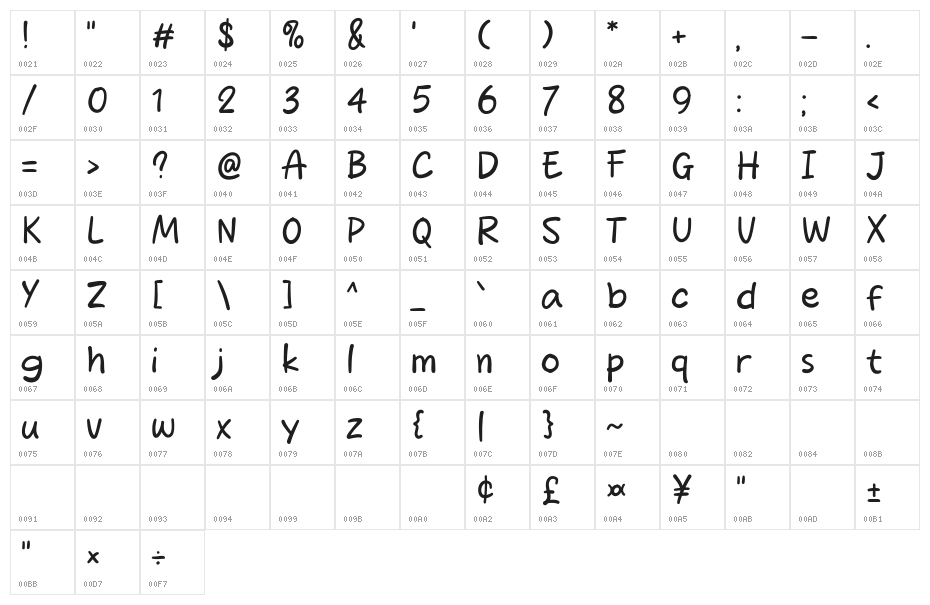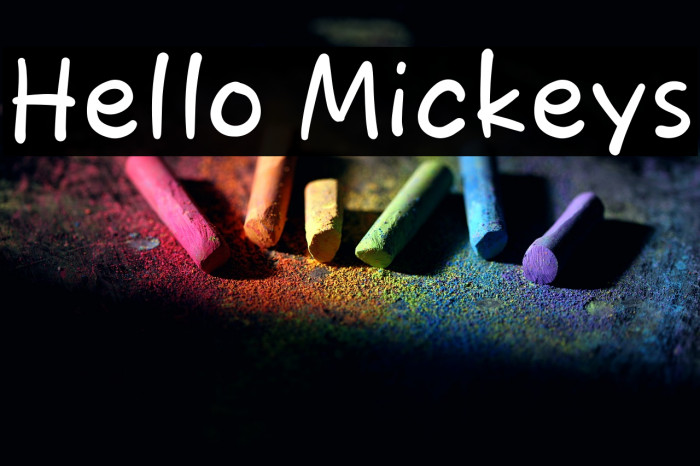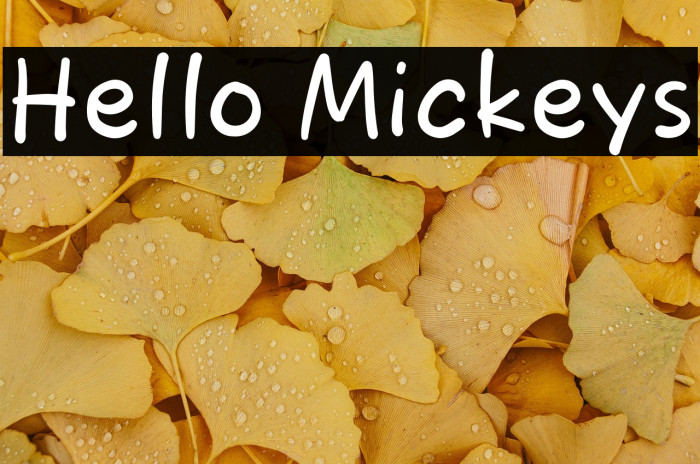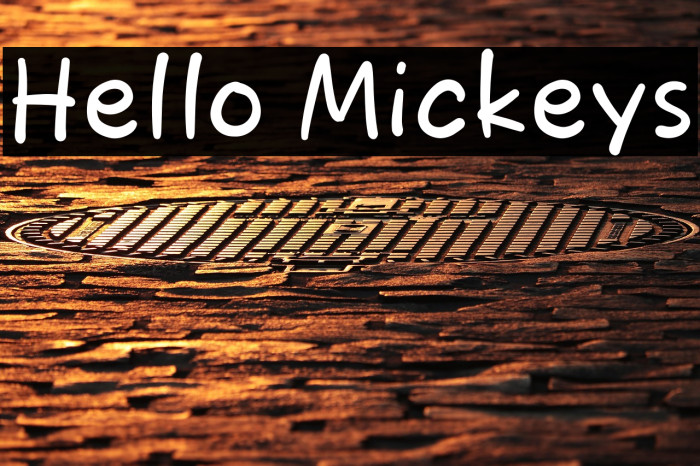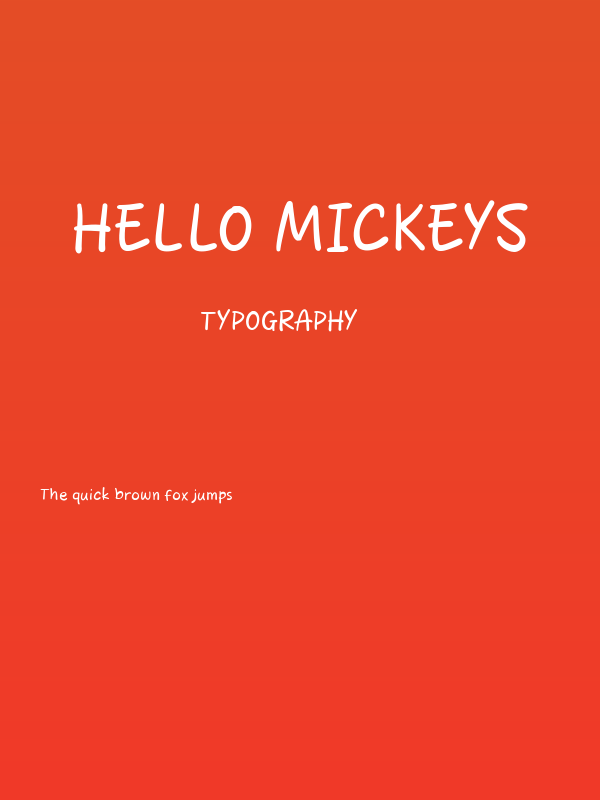
Hello Mickeys Font
Hello Mickeys Description
This font features a playful and casual handwritten style, characterized by its smooth curves and rounded edges. The letters are slightly tilted, adding a dynamic and informal feel. The uppercase and lowercase letters maintain a consistent flow, with the lowercase letters being slightly smaller and more compact. The numerals and special characters follow the same style, ensuring uniformity across all glyphs. This font exudes a friendly and approachable vibe, making it suitable for projects that require a personal touch.
| Overall Style | Casual |
| Use Case | Headlines, Logos, Informal Text |
| Proposed Projects | Ideal for children's books, greeting cards, playful branding, and informal invitations. |